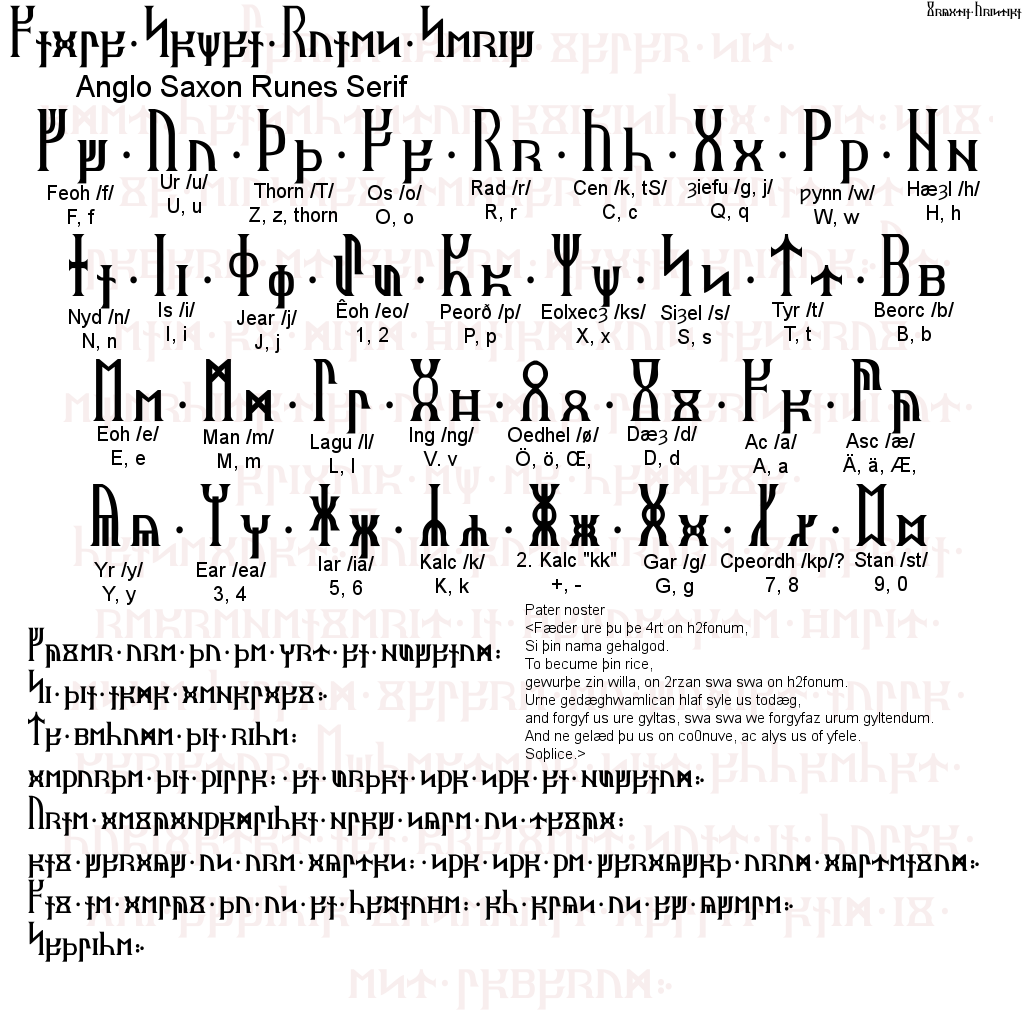
My first actual font. I decided to take the bull by the et cetera, and actually try to make a font... And it was surprisingly easy. *scratches head*
Ok, this is basically a simple serif version of Anglo-Saxon runes with majuscules and miniscules, similar to the blackletter futhark I made earlier, but with much less deviation/evolution from the original.